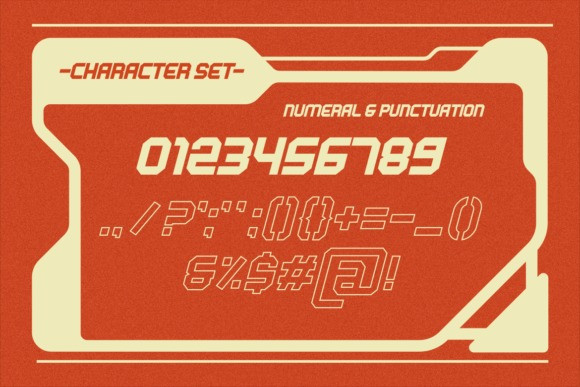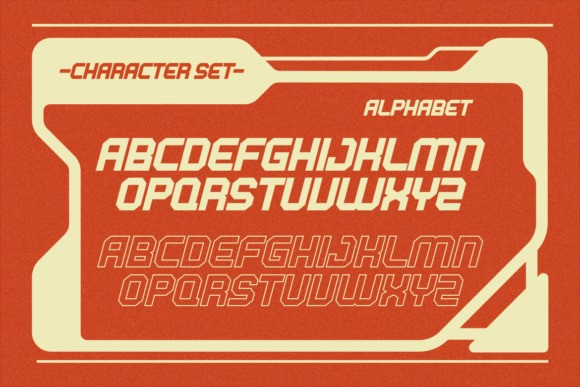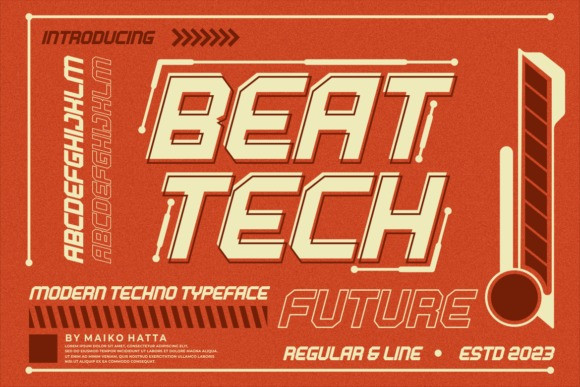
Beat Tech Font
Beat Tech Font, This display font boasts a futuristic and authentic look that’s perfect for modern designs. Its sleek lines and bold geometric shapes convey a sense of innovation and sophistication. With its unique style and attention-grabbing presence, Beat Tech is sure to make a statement in any design project.